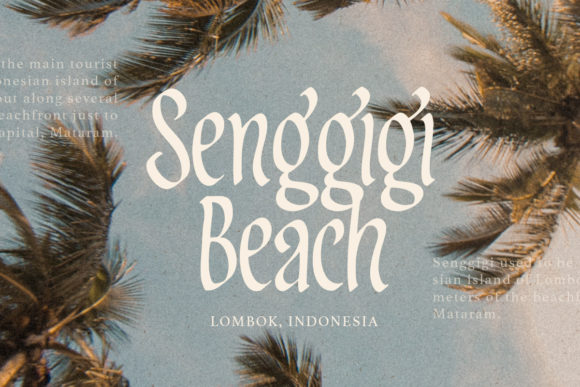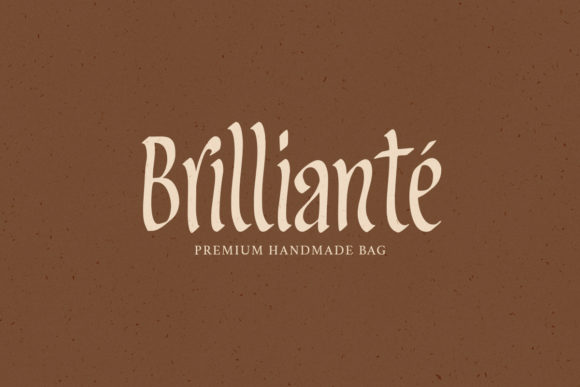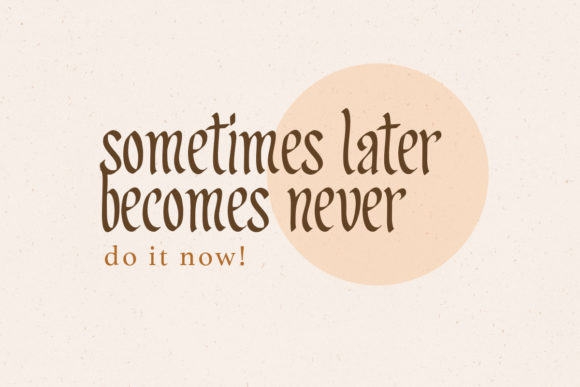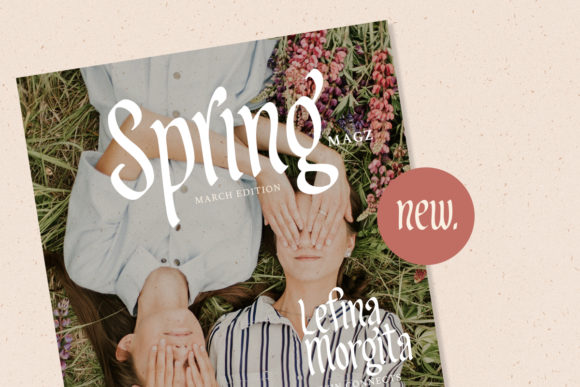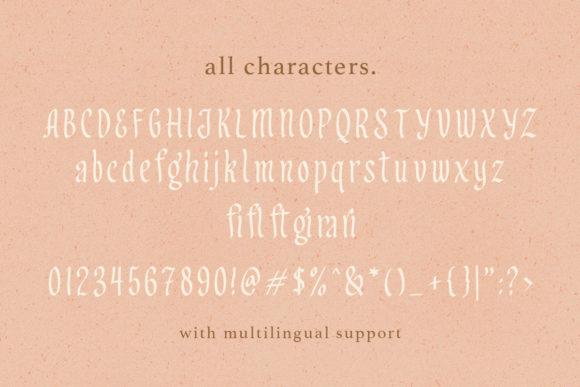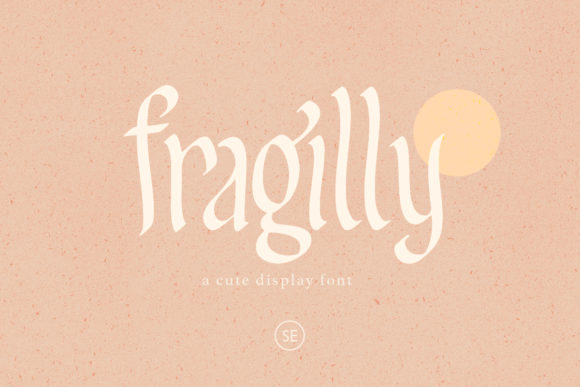
Introducing Fragilly Font: Elevate Your Designs with Elegance
Are you on the hunt for a font that exudes elegance and sophistication? Look no further than Fragilly Font, a stunning display font that is sure to capture the hearts of designers and crafters alike. With its incredibly versatile style, Fragilly Font is perfect for creating a wide range of projects, from gorgeous wedding invitations and beautiful stationery art to eye-catching social media posts and more.
What Makes Fragilly Font So Special?
Fragilly Font is more than just a font – it’s an experience. Its delicate, cursive lines and intricate details evoke a sense of luxury and refinement, making it perfect for designs that require a touch of sophistication. Whether you’re creating wedding invitations, branding materials, or social media graphics, Fragilly Font is sure to elevate your designs and leave a lasting impression.
Endless Possibilities with Fragilly Font
One of the best things about Fragilly Font is its versatility. This font can be used in a wide range of projects, including:
- Wedding invitations and stationery: Create beautiful, one-of-a-kind wedding invitations, save-the-dates, and stationery art that will leave your guests in awe.
- Social media graphics: Add a touch of elegance to your social media posts and stories with Fragilly Font.
- Branding materials: Use Fragilly Font to create stunning logos, business cards, and letterheads that will help your brand stand out.
- Stationery art: Create beautiful, handmade stationery art that showcases your creativity and attention to detail.
Why Designers and Crafters Love Fragilly Font
So, what makes Fragilly Font so popular among designers and crafters? Here are just a few reasons:
- Elegant and sophisticated: Fragilly Font’s delicate lines and intricate details make it perfect for designs that require a touch of luxury and refinement.
- Versatile: Whether you’re creating wedding invitations, social media graphics, or branding materials, Fragilly Font is sure to fit the bill.
- Easy to use: Fragilly Font is incredibly easy to use, even for those who are new to font design.
- Unique: With its one-of-a-kind design, Fragilly Font is sure to make your designs stand out from the crowd.
Tips for Using Fragilly Font
To get the most out of Fragilly Font, here are a few tips to keep in mind:
- Pair it with complementary fonts: Fragilly Font pairs beautifully with a wide range of fonts, so don’t be afraid to experiment and find the perfect combination for your design.
- Use it sparingly: While Fragilly Font is incredibly versatile, it’s best to use it sparingly to avoid overwhelming your design.
- Experiment with colors: Fragilly Font looks stunning in a wide range of colors, so don’t be afraid to experiment and find the perfect hue for your design.
In conclusion, Fragilly Font is a must-have for designers and crafters who want to elevate their designs with elegance and sophistication. With its incredibly versatile style, Fragilly Font is perfect for creating a wide range of projects, from gorgeous wedding invitations and beautiful stationery art to eye-catching social media posts and more. So why wait? Fall in love with Fragilly Font today and take your designs to the next level!